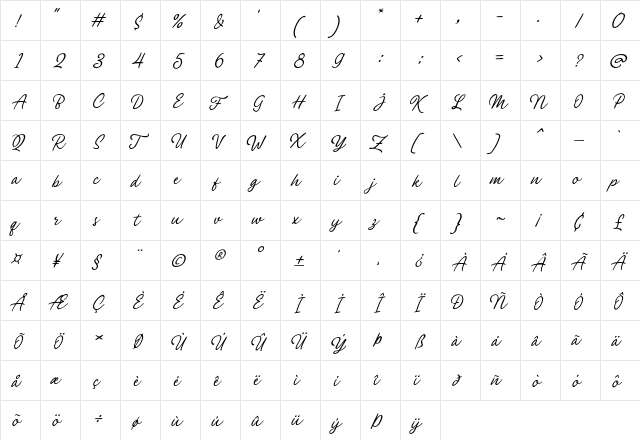
Philomena Script Regular
Design Context for Philomena Script Typeface
Philomena Script brings a calligraphic fluidity to the page — its connecting strokes and expressive curves give it an unmistakably human quality.
Font Pairing: Combine Philomena Script with a simple geometric sans for maximum contrast — the tension between flowing curves and clean structure is a classic typographic pairing.
Pro Tip: Use Philomena Script for short runs of text — names, titles, or taglines. Extended body copy in script faces tires the eye quickly.